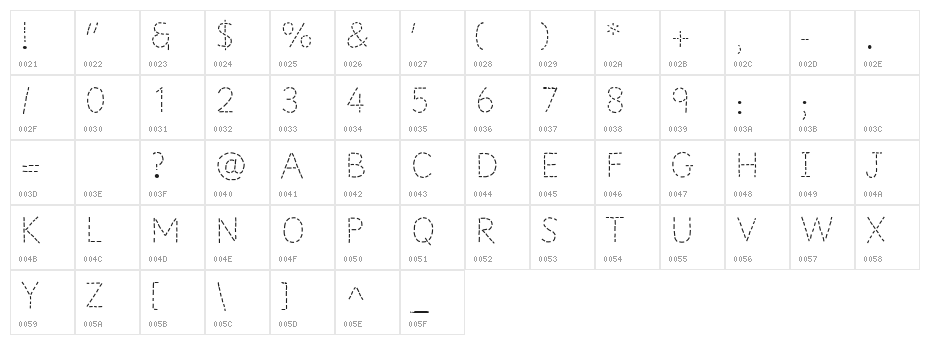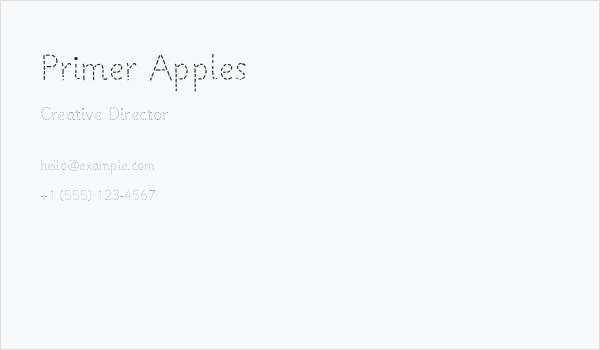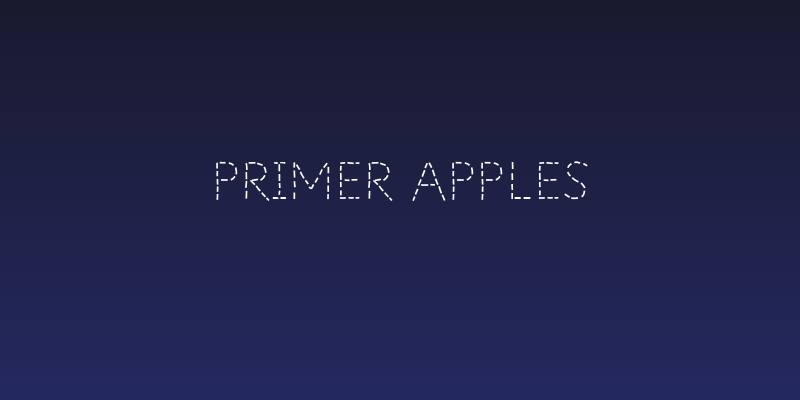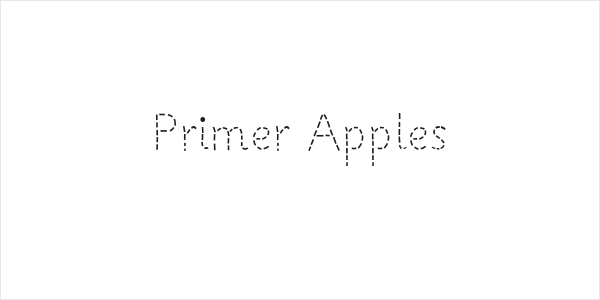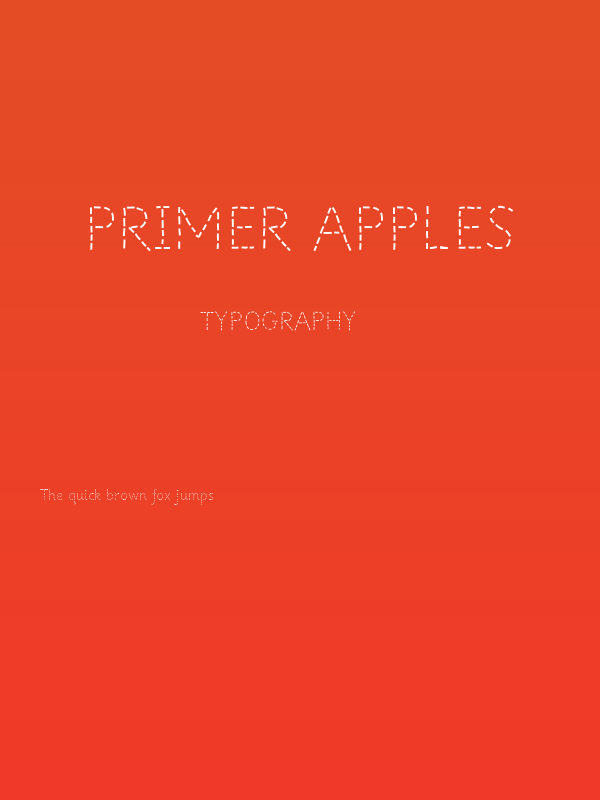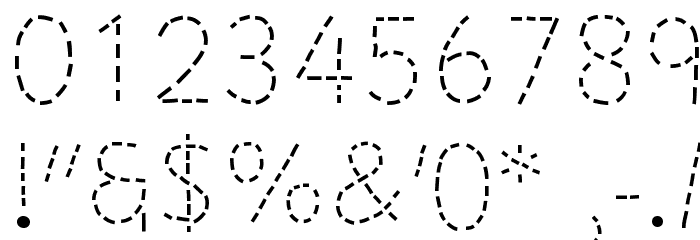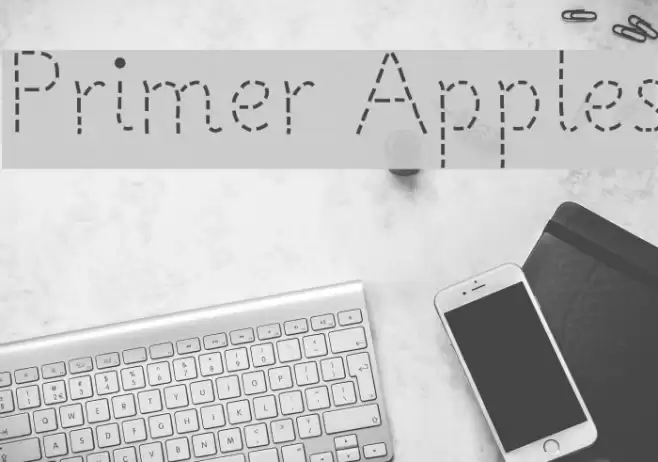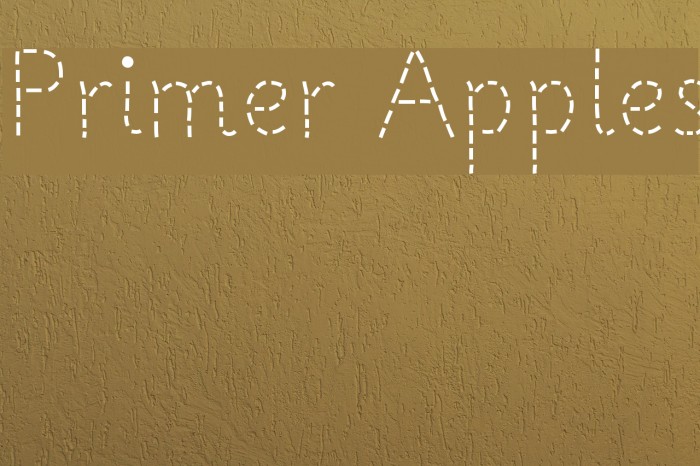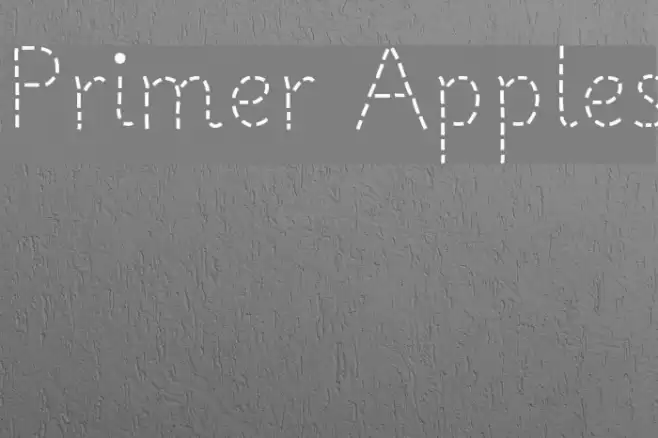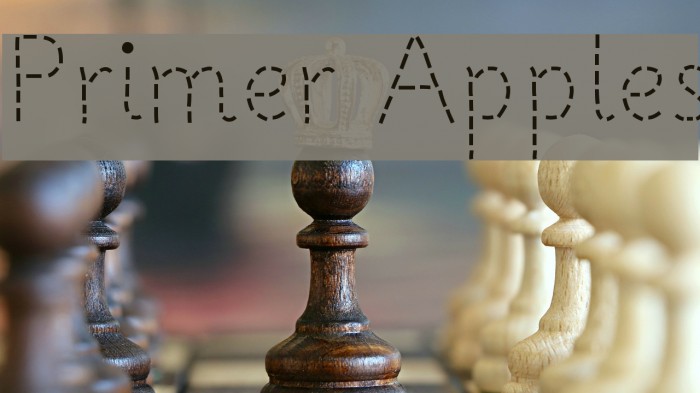
Primer Apples Font
| 用途 | Headlines, Logos, Creative designs |
| おすすめプロジェクト | Ideal for educational materials, children's books, playful branding, and creative designs. |